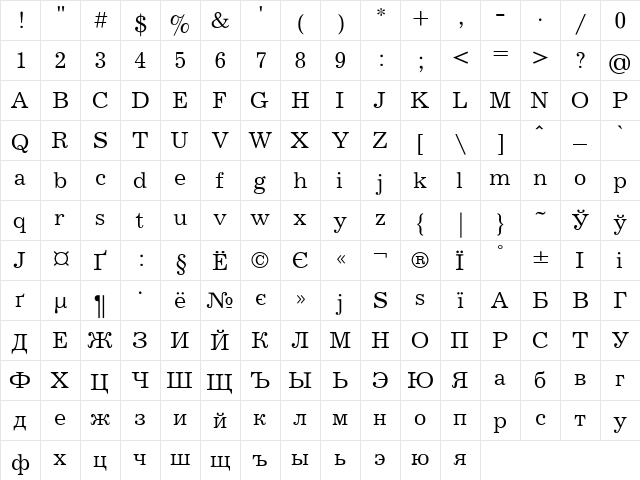
UkrainianJournal Regular
UkrainianJournal takes a measured approach to typography — its balanced proportions and neutral character make it a reliable workhorse for both digital and print work.